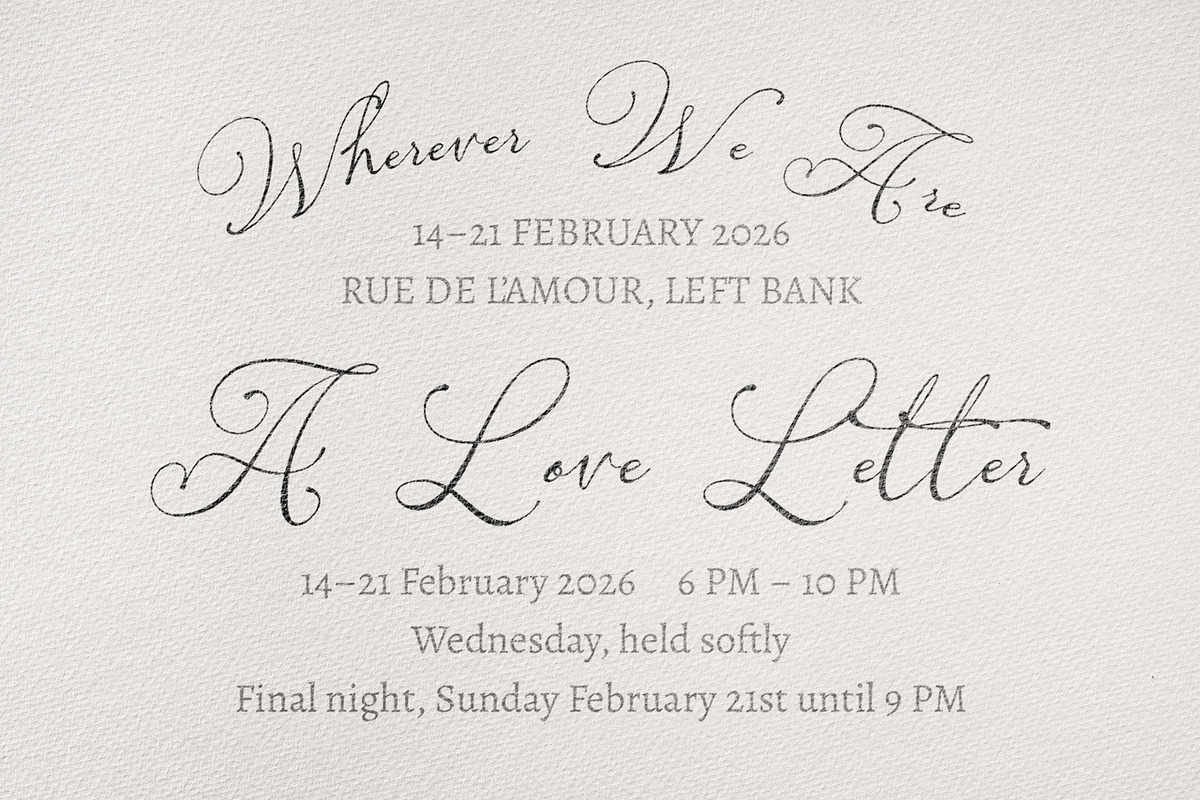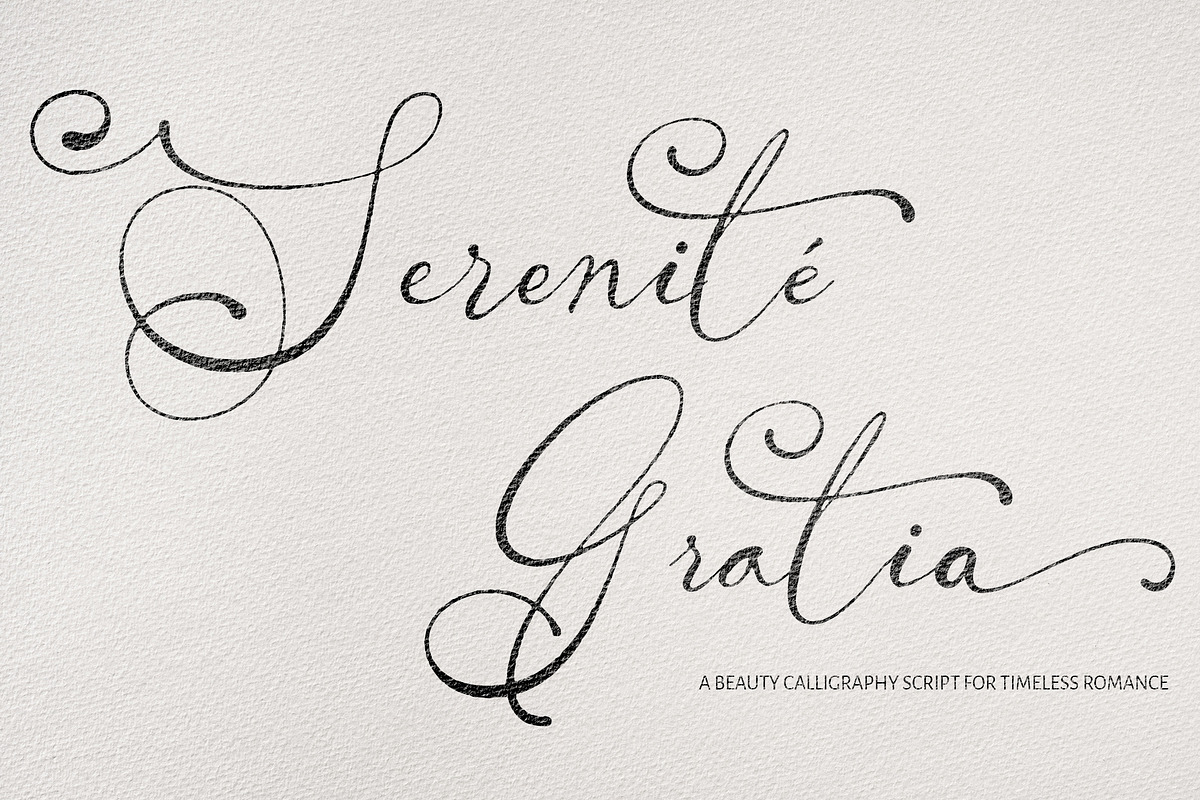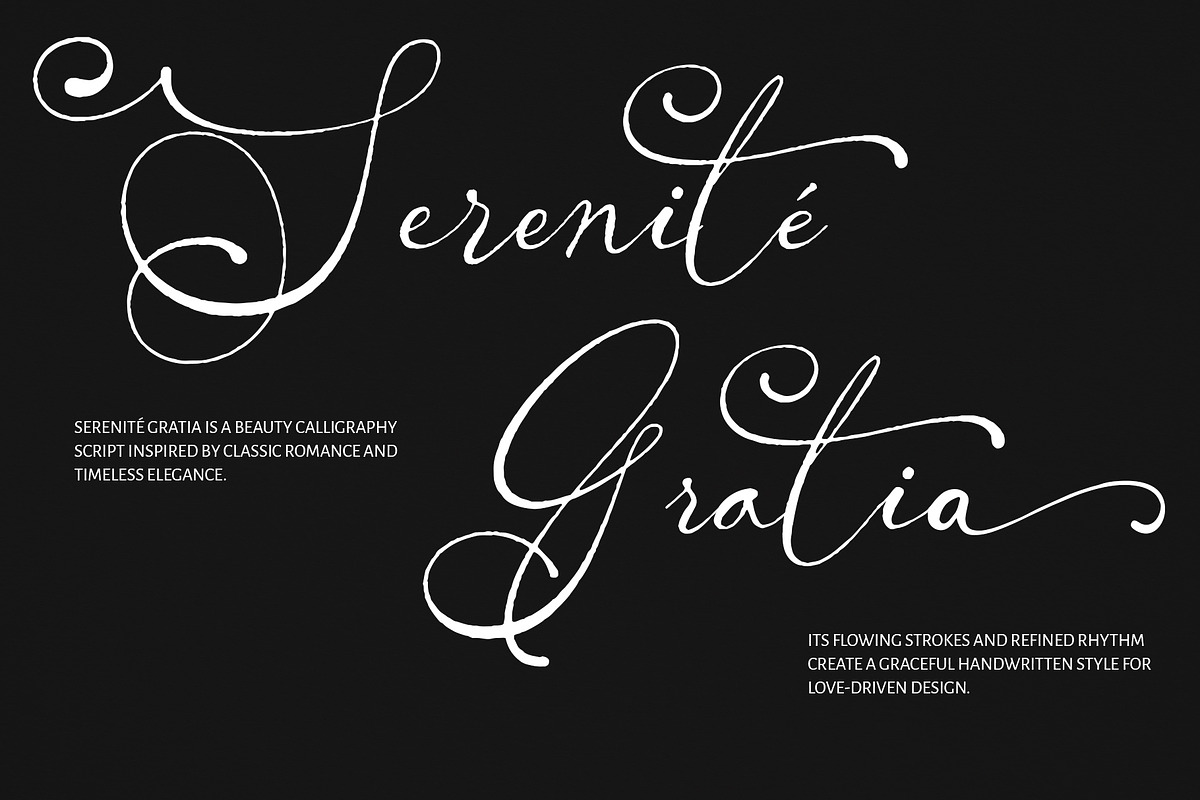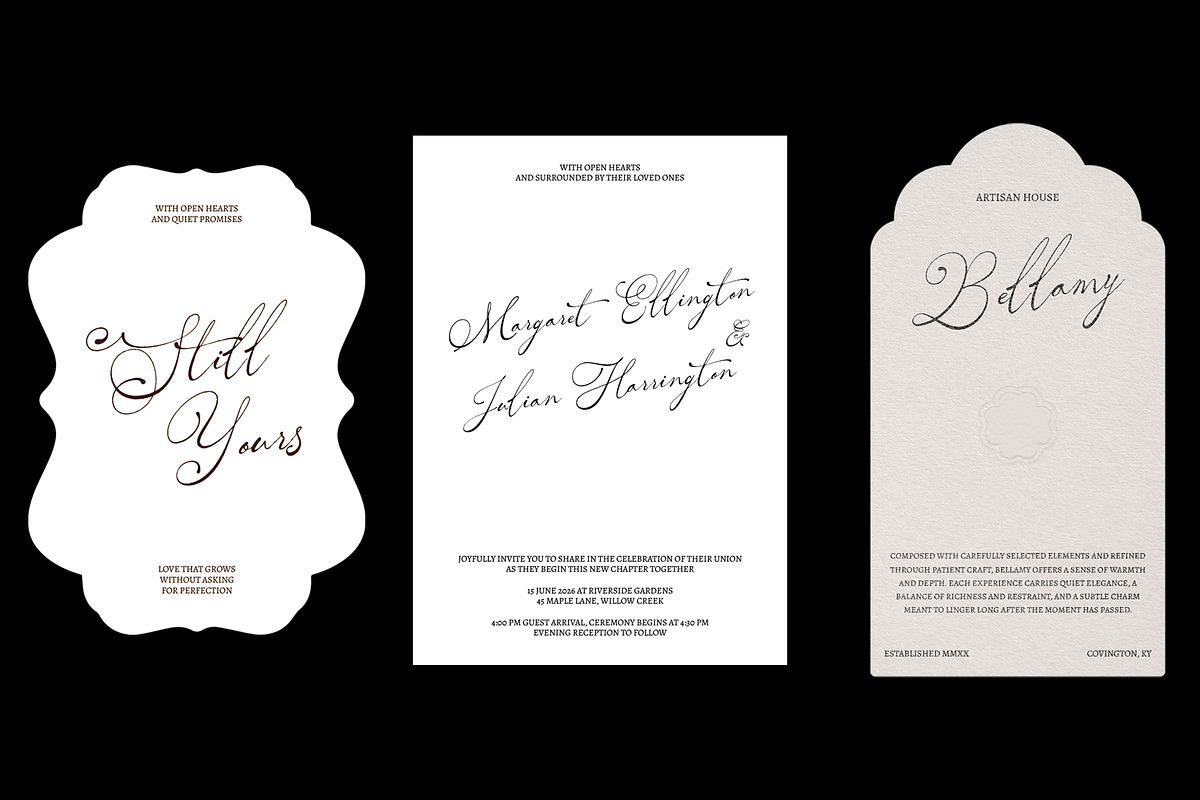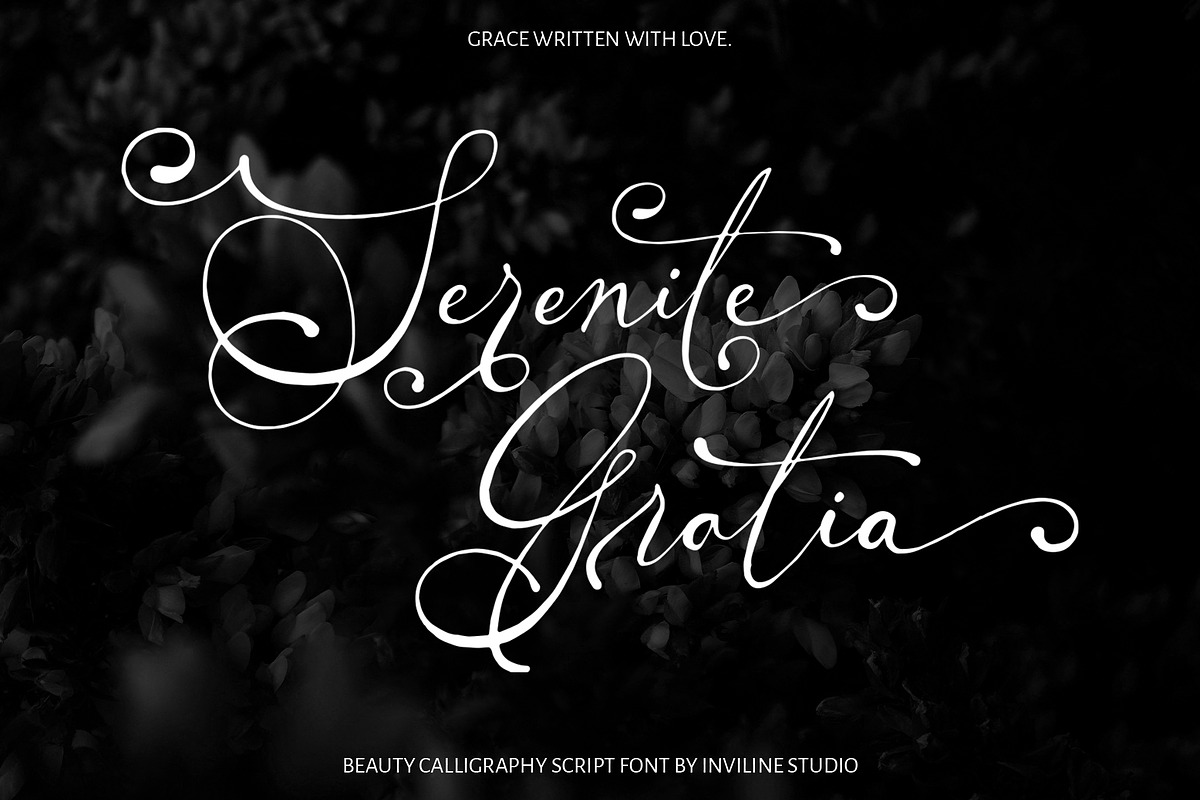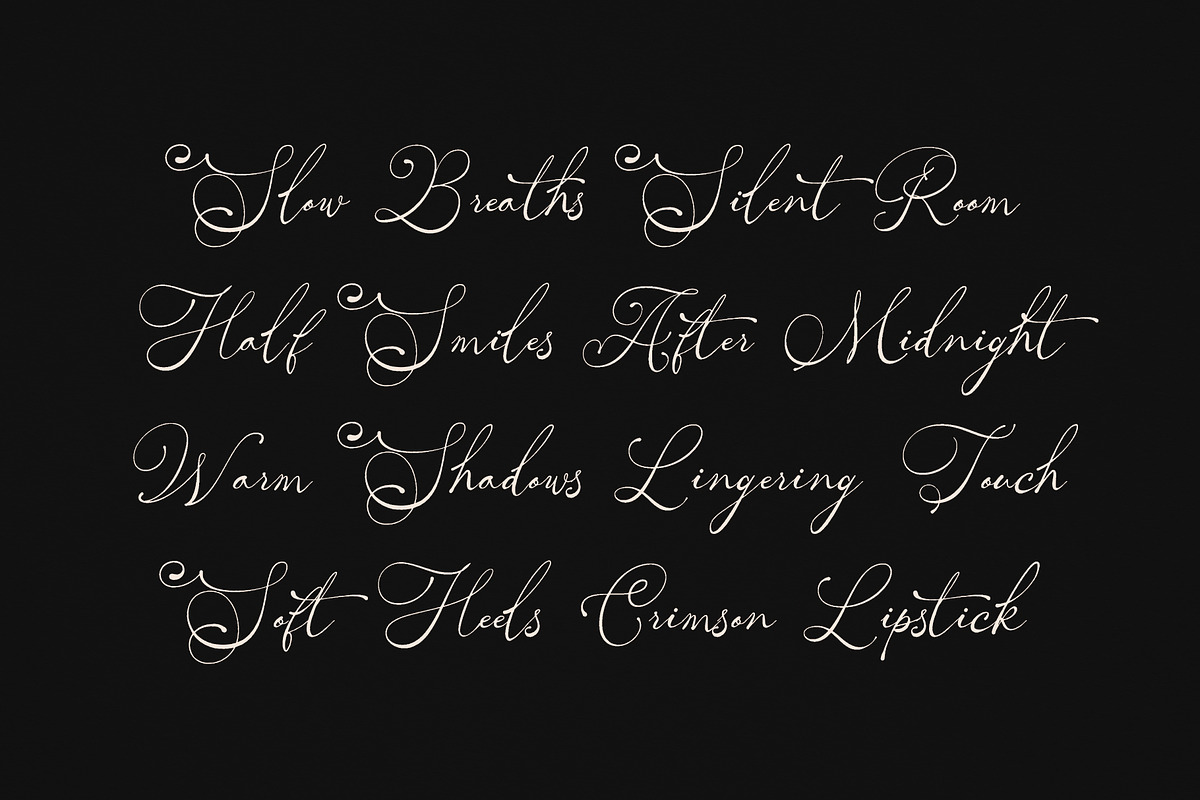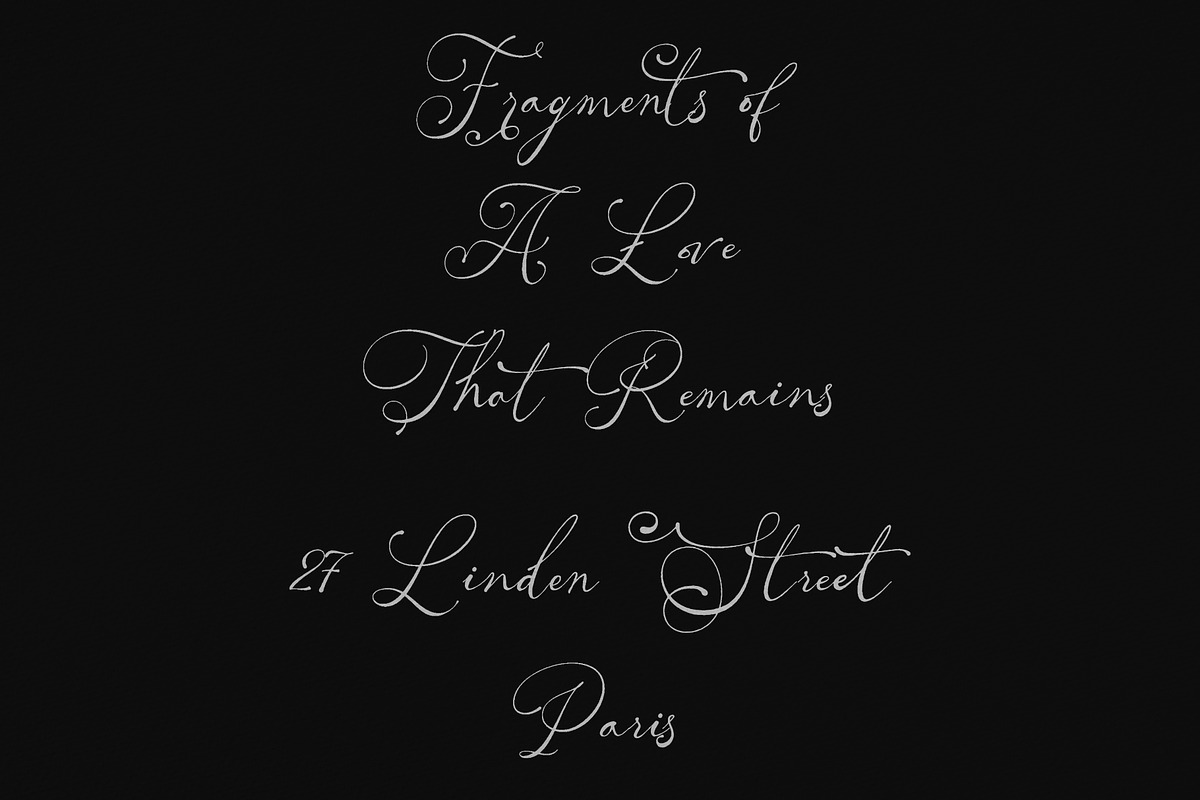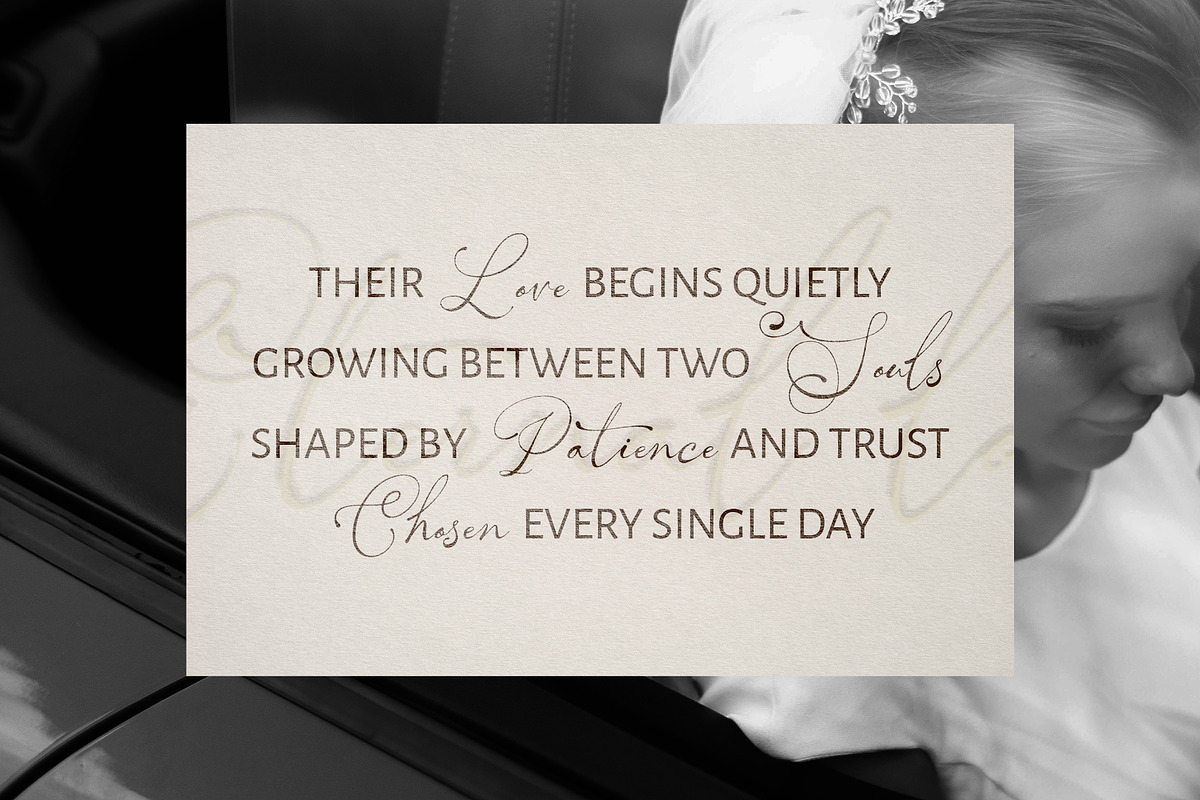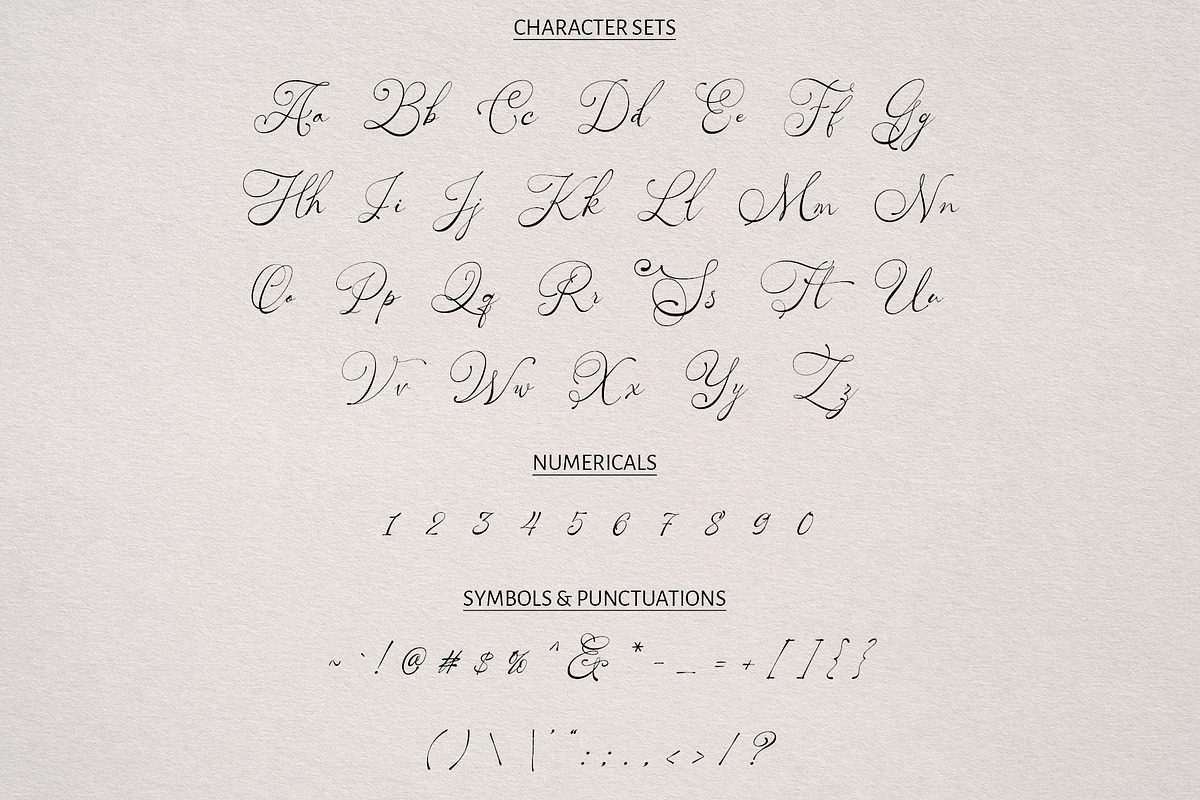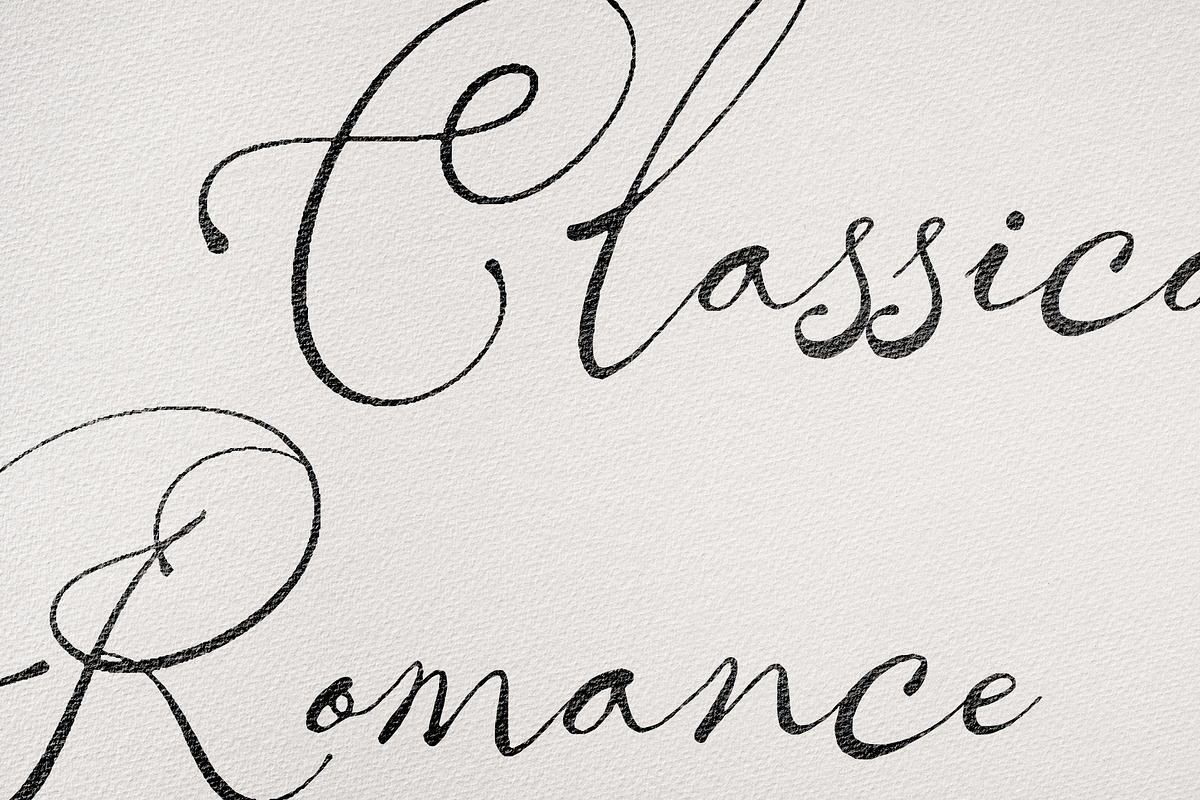
Serenité Gratia - Calligraphy Script
Serenite Gratia is a graceful beauty calligraphy script designed to express romance, elegance, and timeless sophistication. Its delicate strokes, flowing connections, and dramatic flourishes create a refined handwritten appearance filled with personality.
Inspired by classic romance, luxury stationery, and traditional calligraphy, Serenite Gratia adds an intimate and premium touch to every composition. It is especially suitable for designs that require softness, elegance, and a memorable visual signature.
Overview
Serenite Gratia combines slender handwritten strokes with sweeping swashes and decorative uppercase forms. The font feels expressive and luxurious while remaining suitable for modern branding and editorial applications.
Its elegant rhythm works beautifully for names, headlines, monograms, romantic phrases, wedding stationery, beauty identities, and sophisticated packaging. Use the standard characters for a clean calligraphic appearance or activate alternates and ligatures to create more decorative compositions.
Uppercase characters A–Z
Lowercase characters a–z
Numerals 0–9
Symbols and punctuation
Stylistic alternate characters
Decorative beginning and ending swashes
18 ligature combinations
Western European multilingual characters
Elegant beauty calligraphy style
Romantic and sophisticated visual character
Delicate monoline-inspired strokes
Long decorative flourishes and sweeping swashes
Smooth handwritten connections
Suitable for both print and digital design
Complete numerals, symbols, and punctuation
OpenType features for alternates and ligatures
Stylistic alternates for select characters, including decorative forms for S, G, C, R, and selected initial or terminal lowercase characters
18 ligature pairs: st, br, cr, ct, fr, ist, op, or, ox, th, Tr, tt, wn, ff, fi, fl, ffi, ft
Multilingual support: Western European characters with diacritics (À, Á, Â, Ç, É, Ñ, Ø, Ü, etc.)
For an elegant result, use the font at medium or large sizes and allow enough space around the extended flourishes. Pair it with a clean serif or minimalist sans-serif typeface for supporting text.